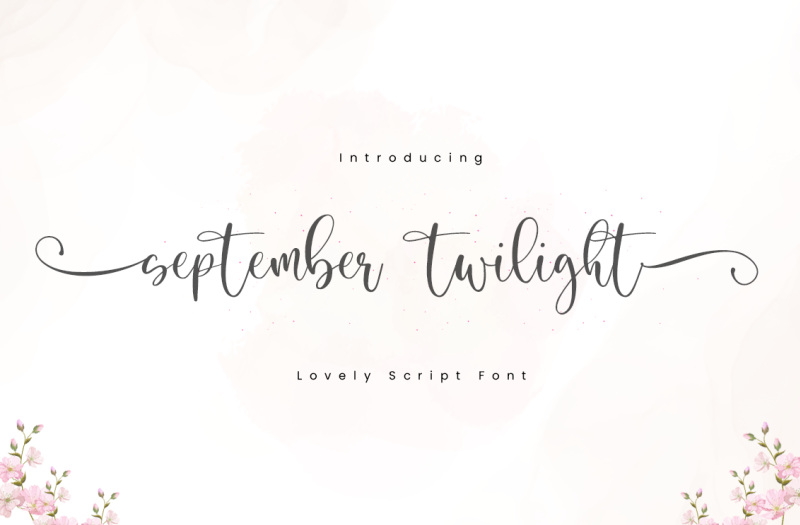
Expressing your feelings can be done in thousands of ways, including writing quotes. There are plenty of selections with unique and inspirational fonts that you can find online. If you like to make quotes online, here are the best inspirational fonts.
12 Best Inspirational Fonts for Quotes Making
Writing styles can be impacted by your quotes. So, you need inspirational quote fonts to make your quotes more engaging. Here are the 12 most inspiring fonts to make your quotes more impactful.
1. Beautiful Heart
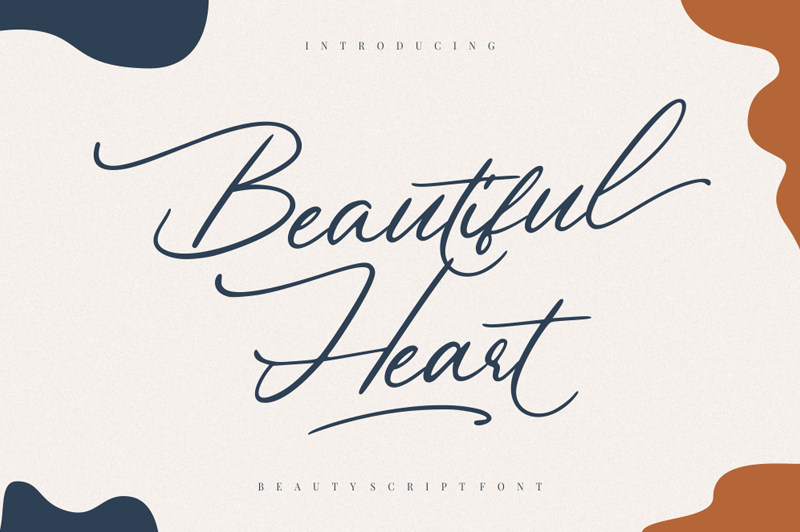
The first inspirational font for quote-making is Beautiful Heart. This font features textureless brush lettering for a clean and sophisticated look. In addition, it will surely go well with your beautiful quotes.
2. Savannah
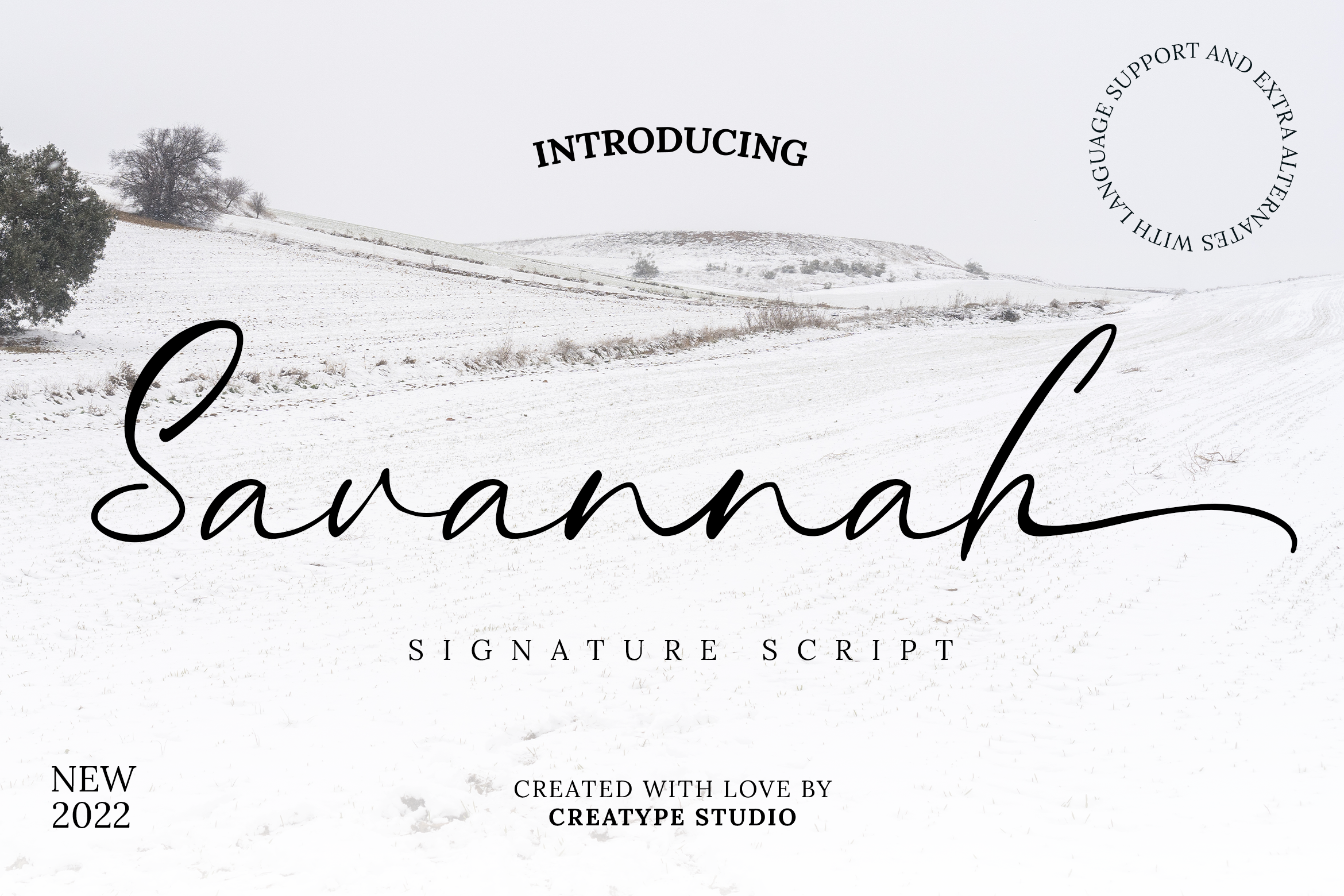
Savannah is a full-featured typeface with lots of OpenType options. It is definitely ideal for quote-making and perfect logos. Moreover, you can use it for wedding invitations, stationery designs, branding initiatives, image overlays, and editorial features. Also, it promotes smooth alignment and extraordinary beauty.
3. Hallelujah
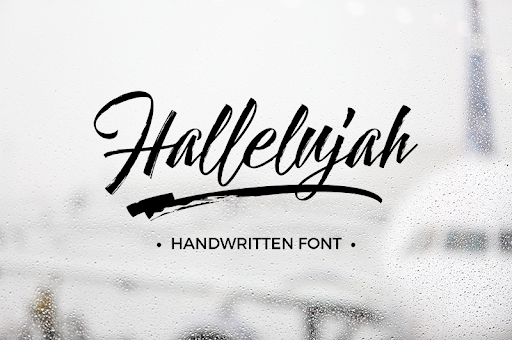
The following best font for quotes is Hallelujah. This font perfectly combines a handwritten cursive song and its sturdy serif companion. It’s perfect for quotes, especially for religious quotes. It is also suitable for albums, logos, invitations, websites, and branding.
4. Hallimun Signature
Hallimun Signature is a handwritten inspirational font with passionate, expressive, meditative dip pen ink. Regardless of the style, this font is suitable for quoting. You might be shocked at how much difference this perfect font can make! Because a clever, eye-catching quote leaves a lasting impression.
5. Selectric Script
Most quotes look best when written in cursive. Finally, a font with a cursive look and feel reminds the audience that the text is handwritten. Such as this italic font, Selectric Script is outstanding, especially to include customer statements or customer feedback from market research studies.
6. Tox Typewriter
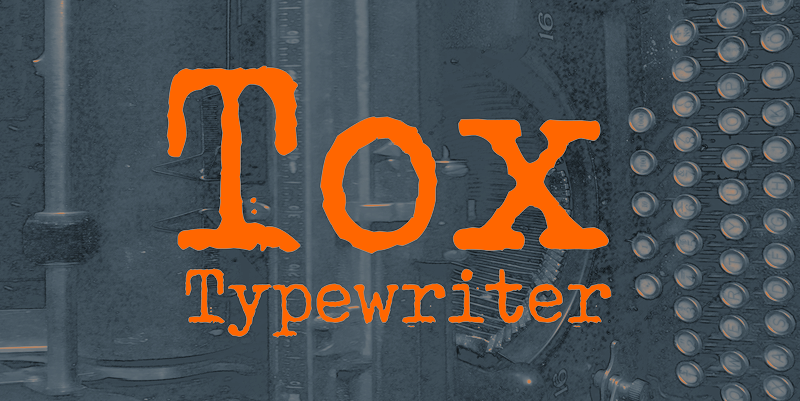
This inspirational font is perfect if you want your quotes to have a rustic look and feel. Tox Typewriter is the typical font that looks like it is typed by an old typewriter. Moreover, this font type is ideal for citing famous authors and historians. So, you can make it quote your favorite sentences and make it more impactful.
7. Army Buster
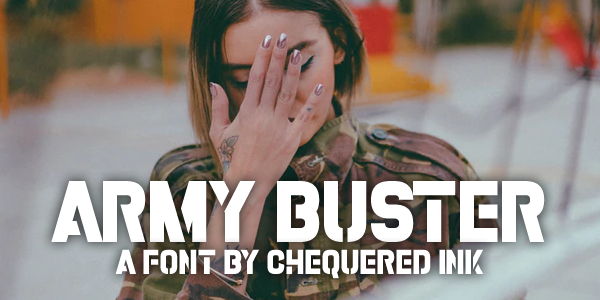
Army Buster is the perfect font if you want to show authority. The typeface is a stencil type. As the name suggests, this font is commonly used by the military and bureaucracy.
It’s the perfect font for conveying seriousness, authority, and strength. Make sure that you are using the features of this font properly. A quote expressed using this font should not be taken lightly.
8. Madina
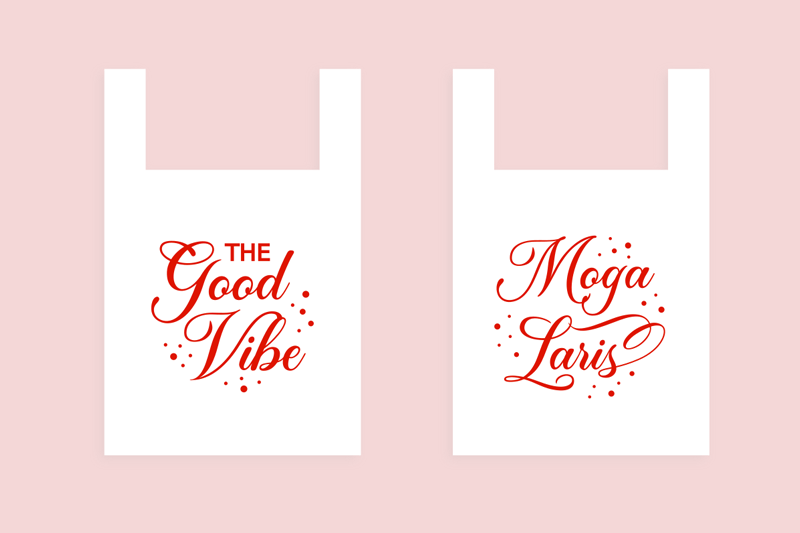
Madina is an inspirational typeface font. It is suitable for estimating and various purposes, such as: writing greetings and other affectionate messages. It exudes class and elegance.
This type of font is commonly found in wedding and unique invitations. Moreover, this calligraphic-type font is perfect for romantic selections and quotes with strong emotions.
9. Bison
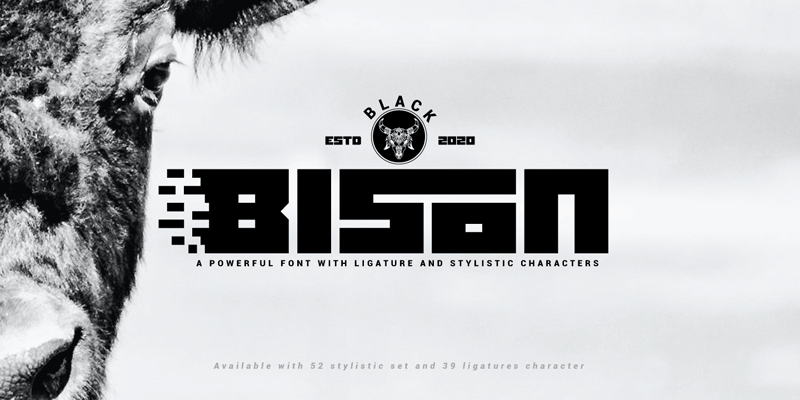
The following best font for quotes is Bison. This is a powerful and stylish sans-serif font family. It is rugged and the uncompromising aesthetic is recognized through controlled letter shapes and modern animal-inspired décor.
10. California Dreams
California Dreams is a type of bold handwritten font with red color. But, if you want to, you can change the color and make it fit your design. It looks like a solid handwritten one and looks cute simultaneously. It’s a good choice if you want to create quotes for women.
11. September Twilight
This handwriting font is derived from handwritten words, so you’ll find it to be as realistic as possible. September Twilight has delicate decorative features, perfect for cute notebooks, business cards, and one-line writing. Be abstract and humorous with this expressive font.
12. Alexandra
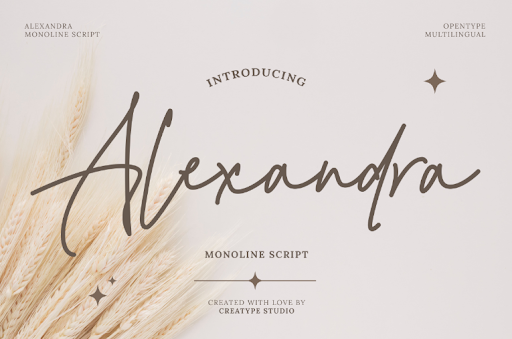
Last but not least, of inspirational fonts, Alexandra is a handwriting style font consisting of uppercase letters and monoline. Many people, especially designers, love this font because it is easy on the eyes. I’m sure this font will be perfect for your quote!
Have Some Characteristics of Your Quotes!
So these are the best inspirational fonts for creating quotes. Keep in mind font has characteristics that impact your quotes. Specific fonts can subtly convey certain emotions and feelings.